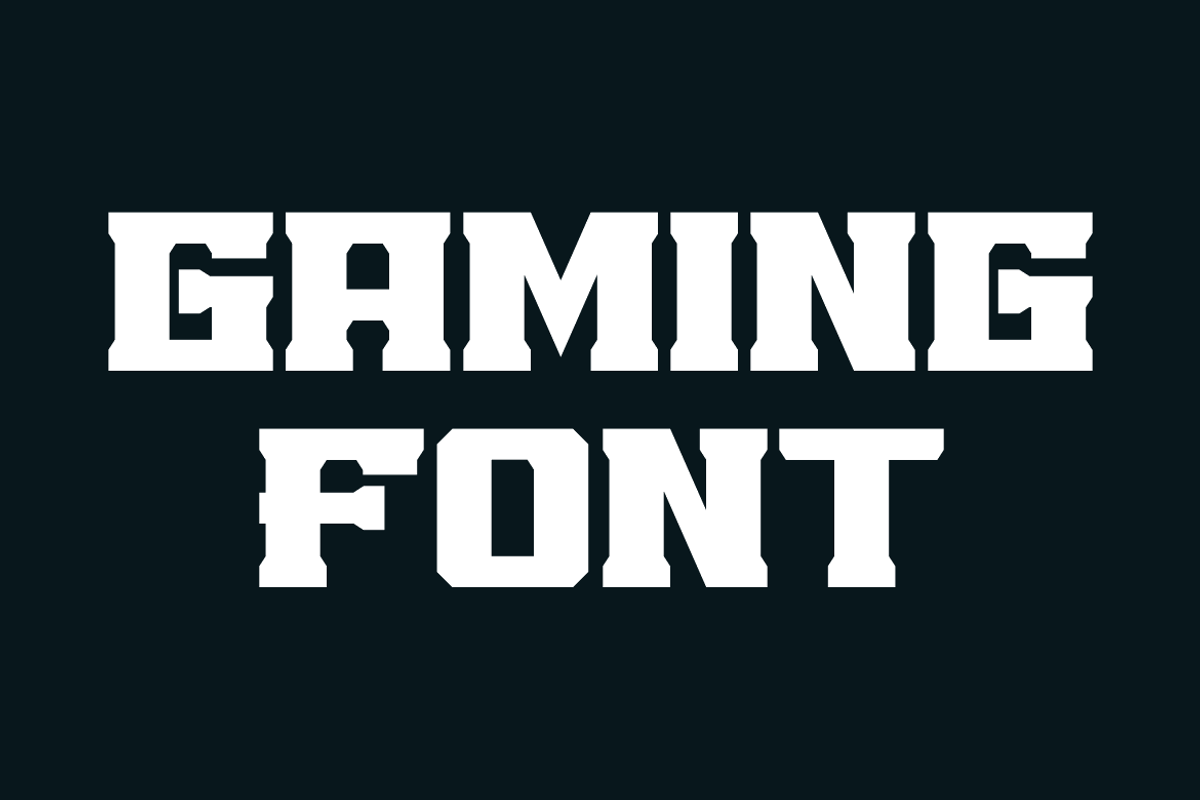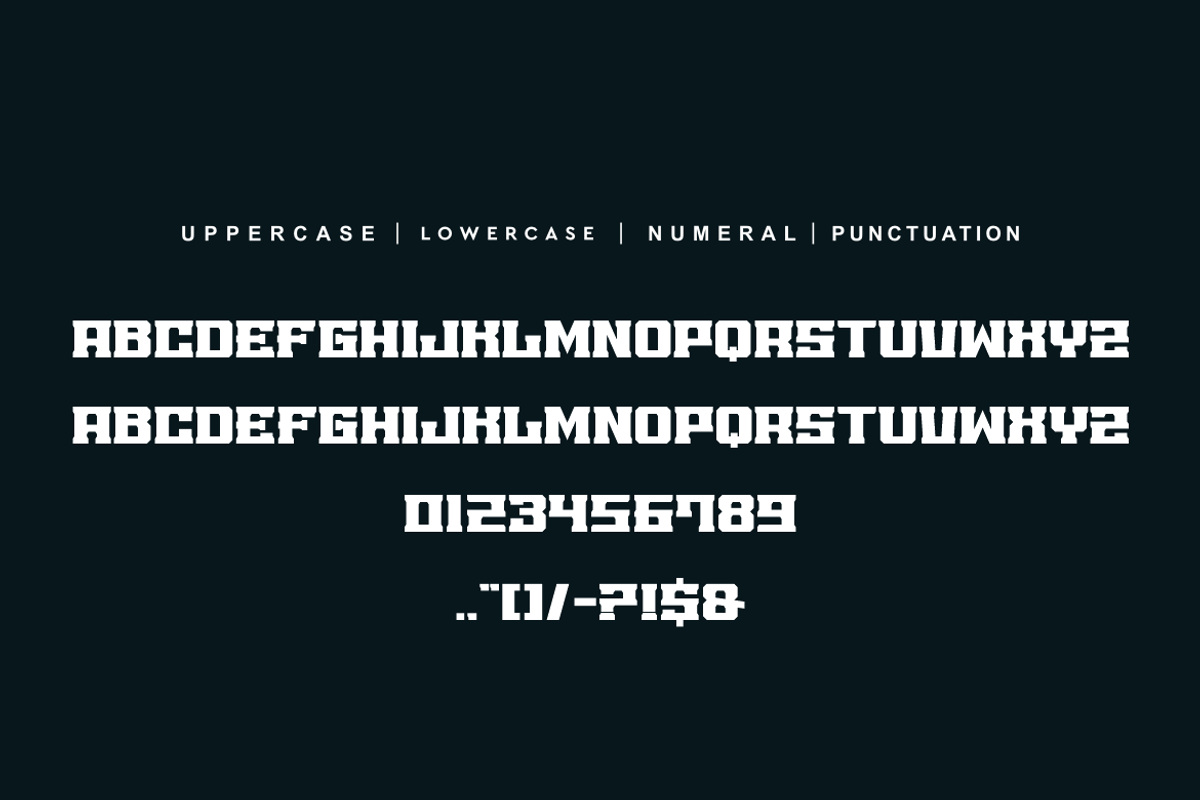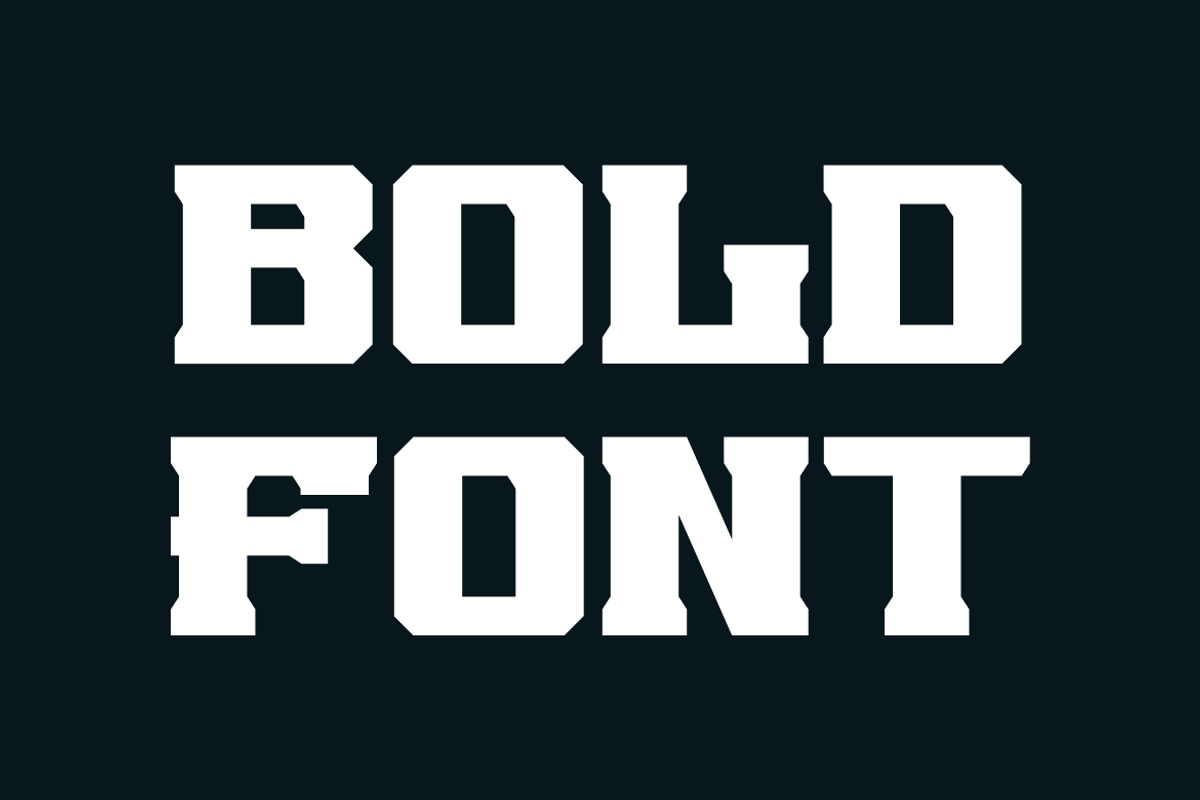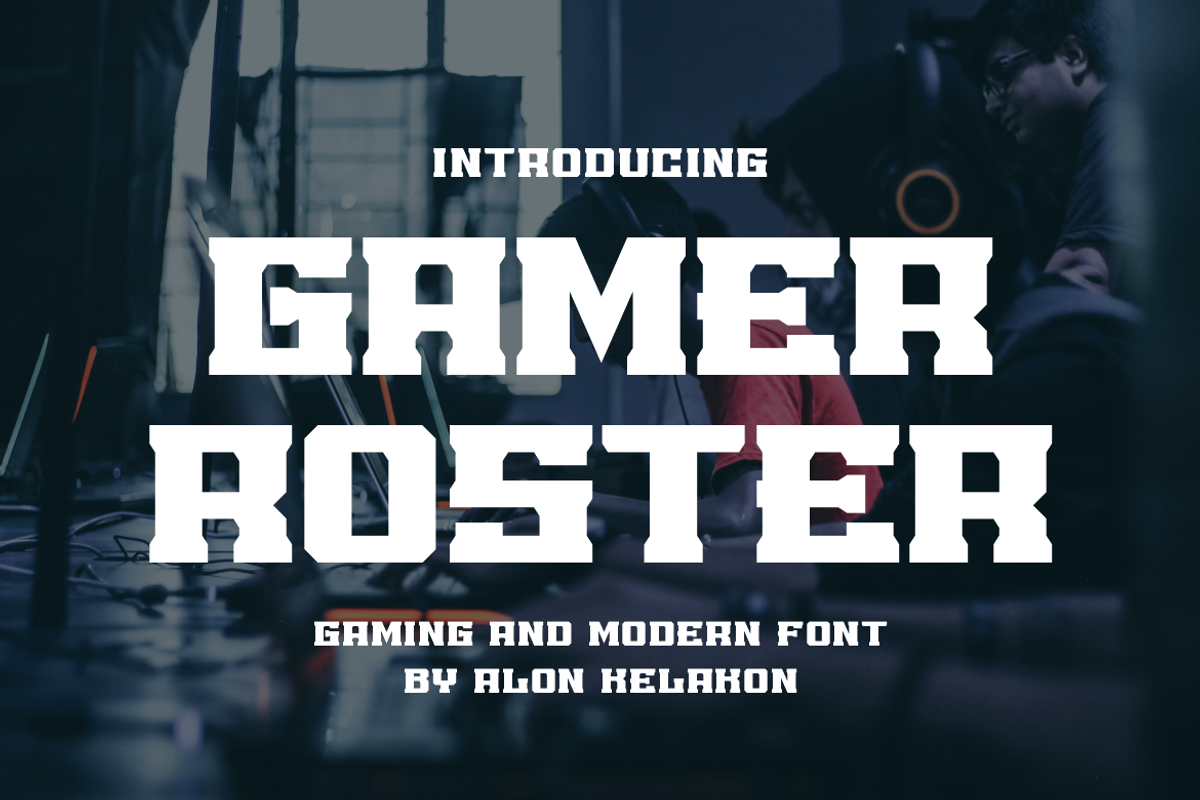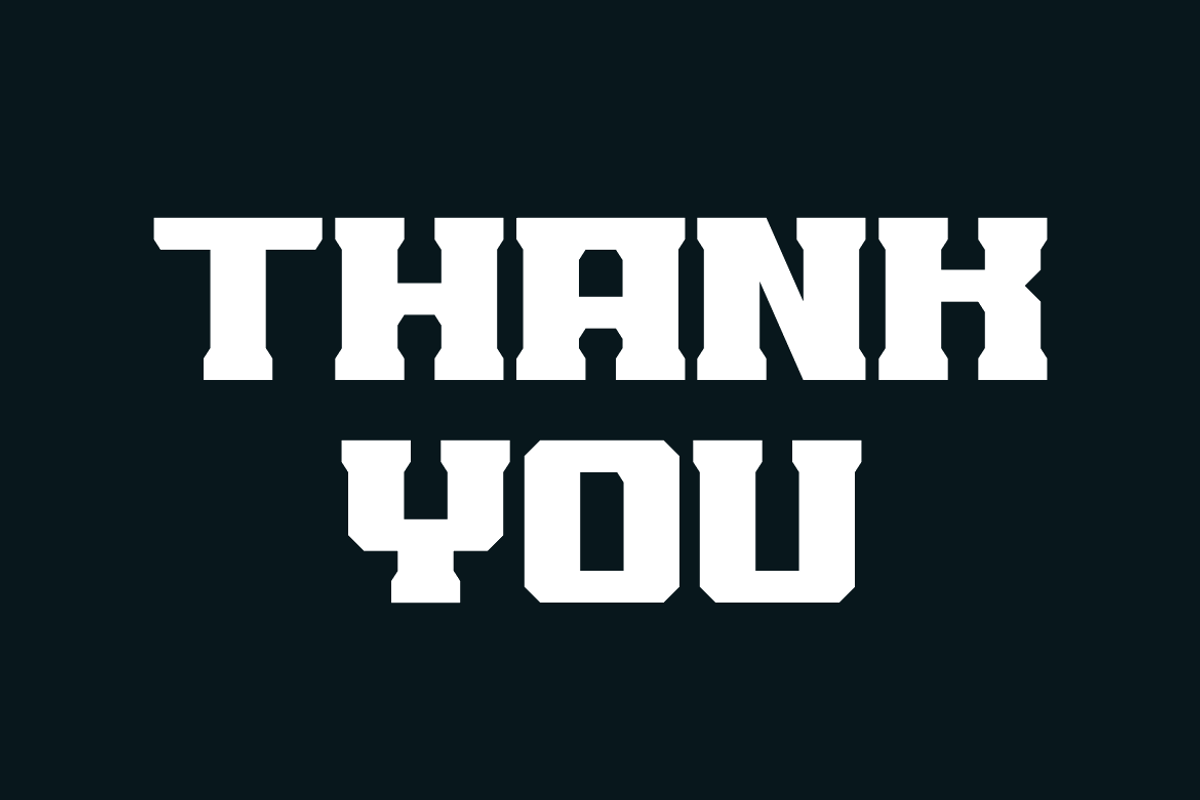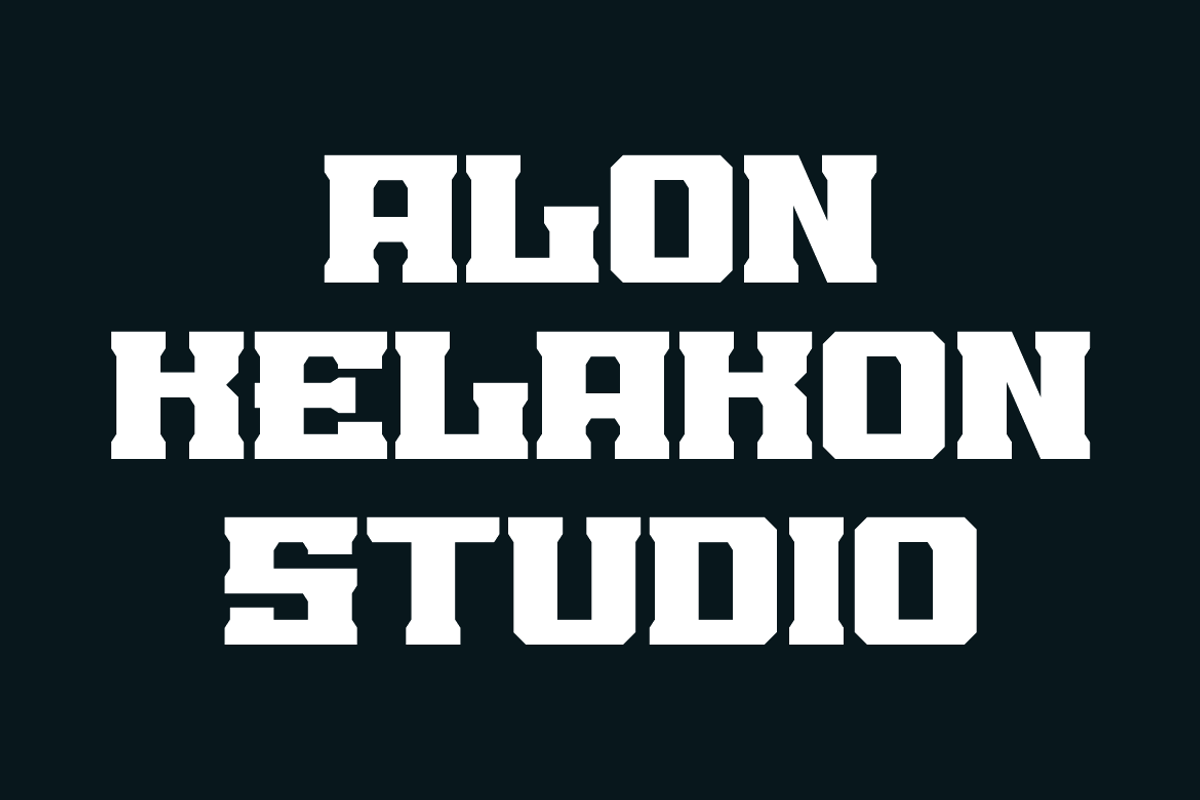
Gamer Roster
Gamer Roster Font is unique . Ready to use for your design like labeling, movie sceen, poster, movie title, gigs, album covers, logos, and much more.